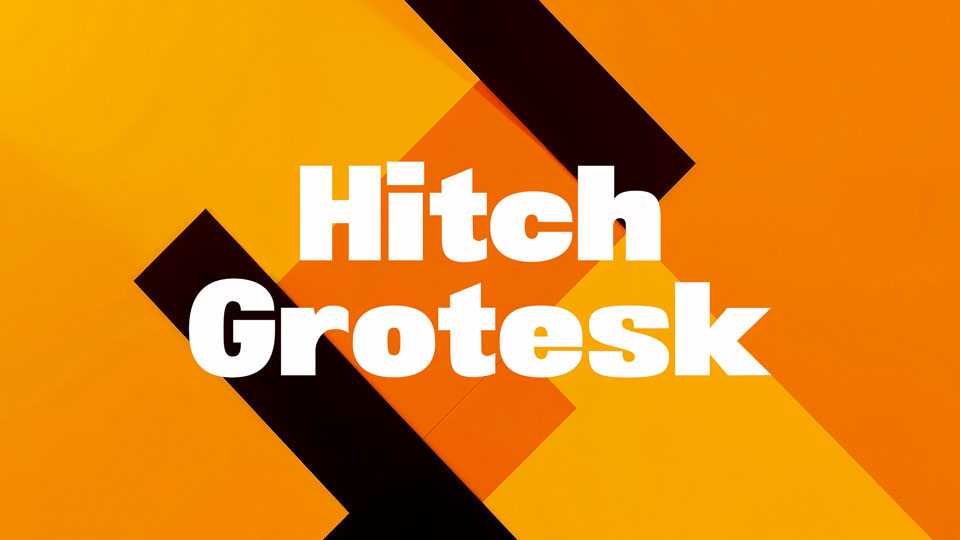
Download Hitch Grotesk font, a versatile neo-grotesque typeface that masterfully balances clarity, modernity, and strength that adapts seamlessly to various design needs.
Designer: Moritz Vifian